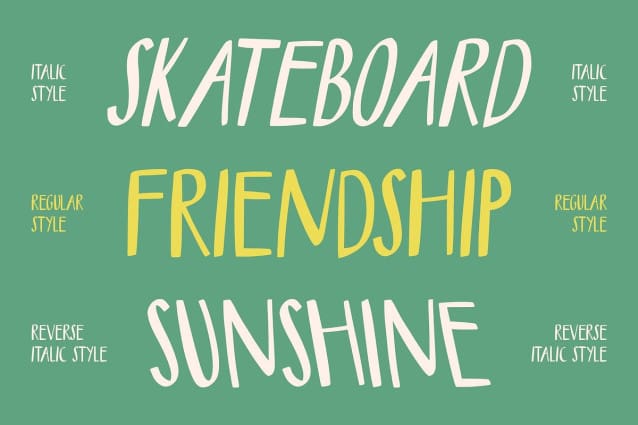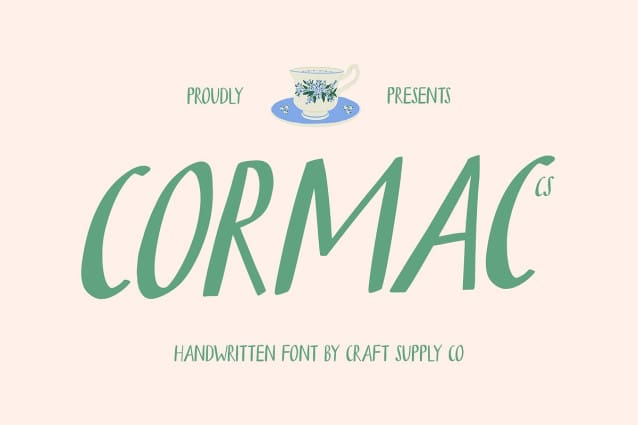
CS Cormac Font
CS Cormac Font– This is a marker-style sans serif font defined by its long, slim structure and effortless flow. Each stroke carries a touch of handwriting, giving the font a natural and personal feel while maintaining the clean balance of modern typography.
Handwritten Texture for Authentic Warmth The handwritten texture enriches every character, adding depth and movement to its polished shape. This subtle imperfection creates a handcrafted charm that feels organic yet refined, making your text come alive with personality and rhythm.
Balanced Between Polished and Expressive This font bridges the gap between structure and spontaneity professional enough for branding, yet fluid and expressive for creative layouts. Its slender design enhances readability while maintaining a distinctive, artistic appeal.
Perfect for Editorial, Branding, and Digital Design Ideal for editorials, branding, digital projects, or creative designs, this font offers versatility and warmth. It’s a font that feels both modern and human, perfect for projects seeking a clean yet expressive handwritten touch.